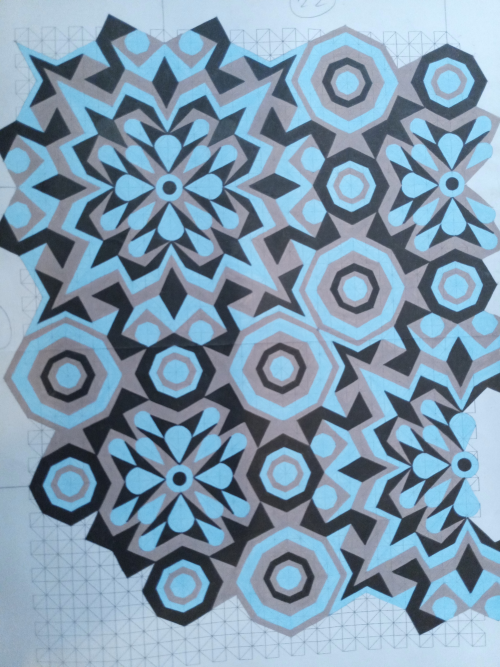
Another gorgeous pattern. It would make beautiful tiles. 10/10
Wow.
sketched in 2004
Fascinating and bewitching!!! ❤️
ha, "bewitching" sounds so good!
i wish to bewitch. :)
I really love the pattern tiles you've created. I wonder what the next one is going to look like…
thx, BWM! next one will be probably some of these...
or these...
because at the moment i am only recreating the old ones.
thereafter (hopefully) will start making something from scratch.